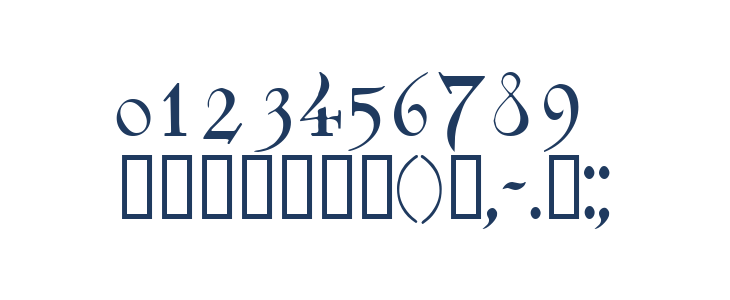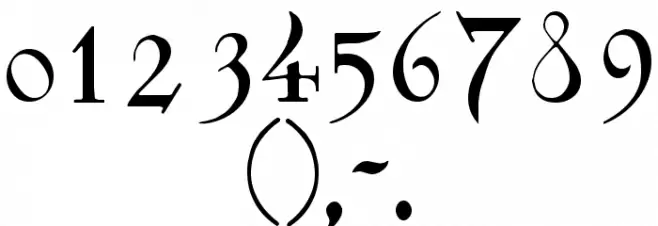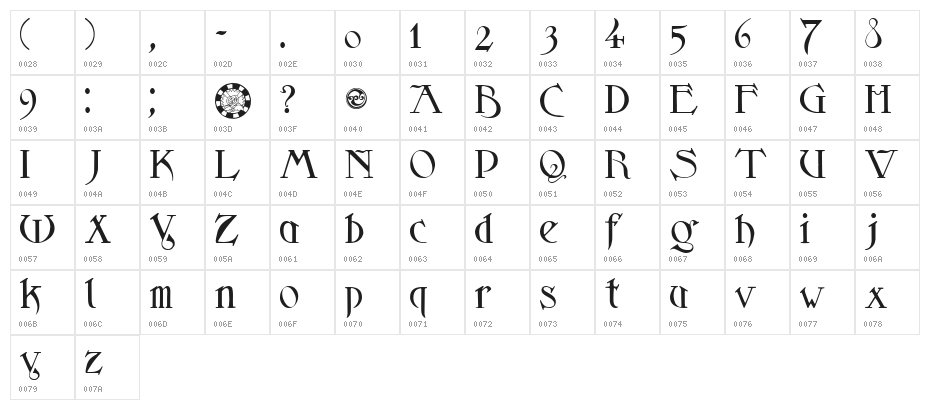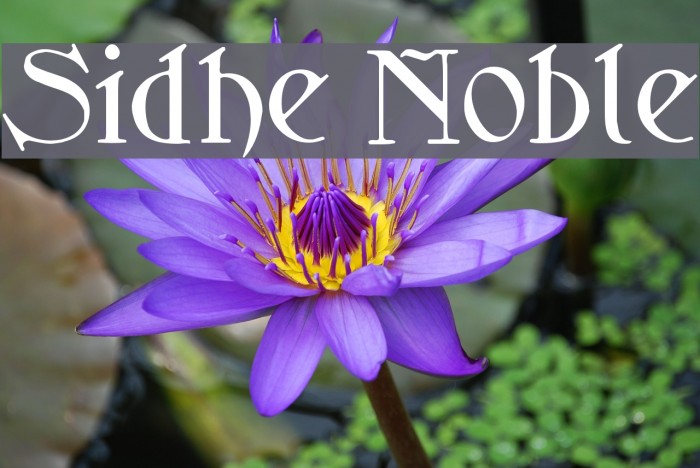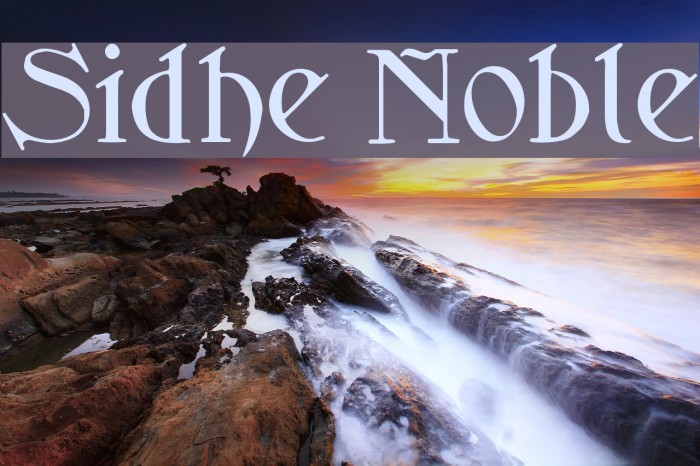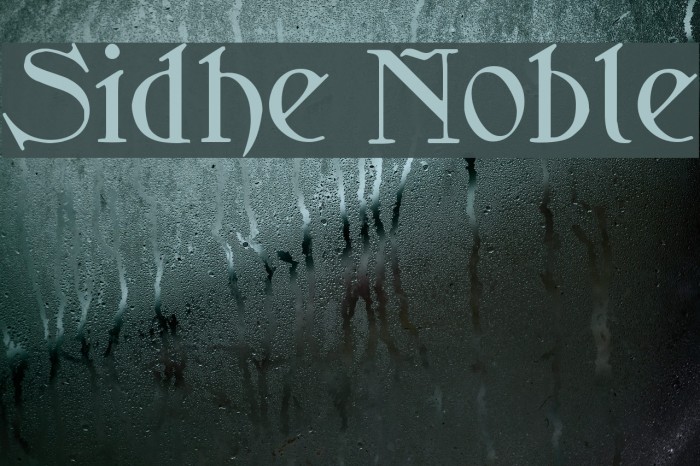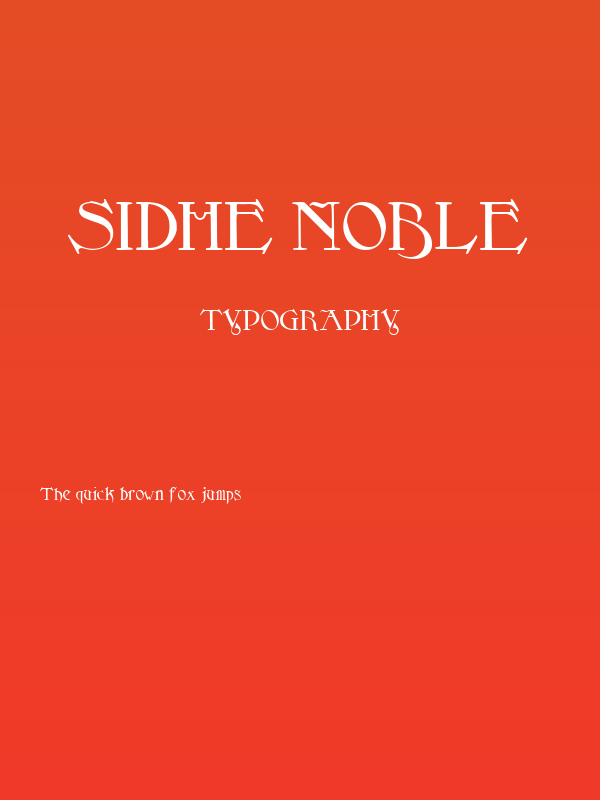
Sidhe Noble Font
Sidhe Noble Description
This font features a unique blend of medieval and fantasy elements, characterized by its sharp, angular serifs and distinctive curves. The uppercase letters exhibit a dramatic flair with elongated strokes and pointed edges, while the lowercase letters maintain a more traditional yet stylized appearance. The numerals are equally ornate, with a consistent design language that ties them to the alphabetic characters. Special characters are crafted with the same attention to detail, ensuring a cohesive look across all glyphs. The overall aesthetic is both bold and elegant, making it suitable for projects that require a touch of fantasy or historical inspiration.
Proposed ProjectsIdeal for fantasy book covers, game titles, themed event invitations, and branding for historical or fantasy-themed products.